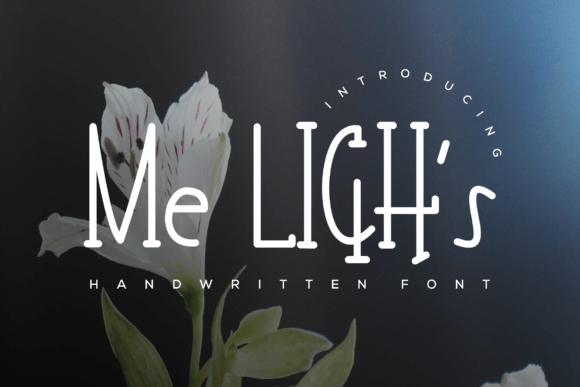
Unleash the Allure of Me Ligh's Font: A Handcrafted Gem for Your Creative Endeavors
Step into a world of captivating charm and delightful whimsy with Me Ligh's Font, an enchanting handwritten font that will ignite your imagination and transform your designs into captivating masterpieces. This exquisite script font, meticulously crafted by emprit.graphic, exudes a playful spirit and a touch of delightful quirkiness that will leave an unforgettable impression on your audience.
Adorned with graceful curves and delicate strokes, Me Ligh's Font possesses an irresistible charm that adds a personal touch to every project. Its whimsical nature makes it the perfect choice for adding a touch of whimsy and delight to wedding invitations, greeting cards, branding materials, and any other design that calls for a dash of playful elegance.
As you immerse yourself in the world of Me Ligh's Font, you'll discover a versatile font that effortlessly adapts to a multitude of creative projects. Its playful personality shines through in party flyers and posters, while its elegant charm adds a touch of sophistication to brochures and presentations. Whether you're creating digital designs or crafting physical masterpieces, Me Ligh's Font seamlessly blends creativity and professionalism, leaving your audience captivated by its undeniable allure.
With Me Ligh's Font at your fingertips, you'll embark on a creative journey filled with endless possibilities. Its user-friendly nature makes it accessible to designers of all skill levels, allowing you to effortlessly infuse your designs with a touch of magic. Experience the joy of crafting designs that resonate with your audience, leaving a lasting impression that speaks volumes about your creativity and attention to detail.
So, dive into the world of Me Ligh's Font today and let your imagination soar. Embrace the beauty of handwritten charm and embark on a creative adventure that will transform your designs into works of art. Unleash the power of Me Ligh's Font and witness the magic unfold as your designs come to life with a captivating allure that will leave your audience spellbound.